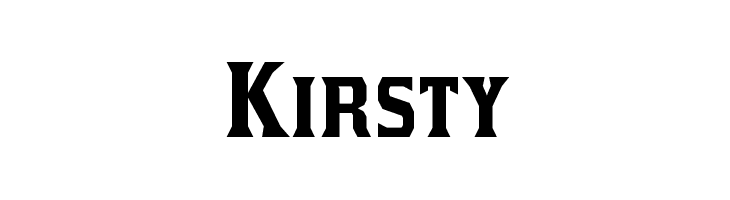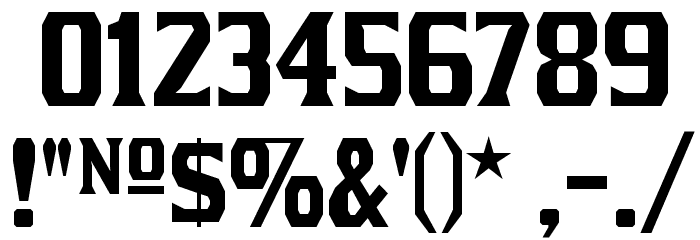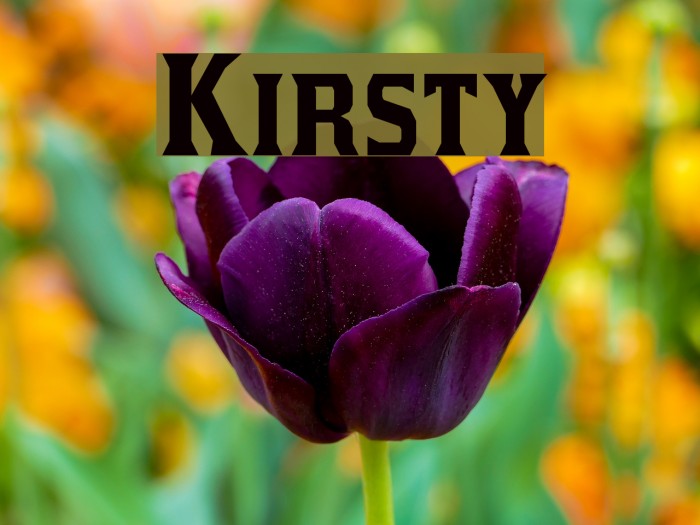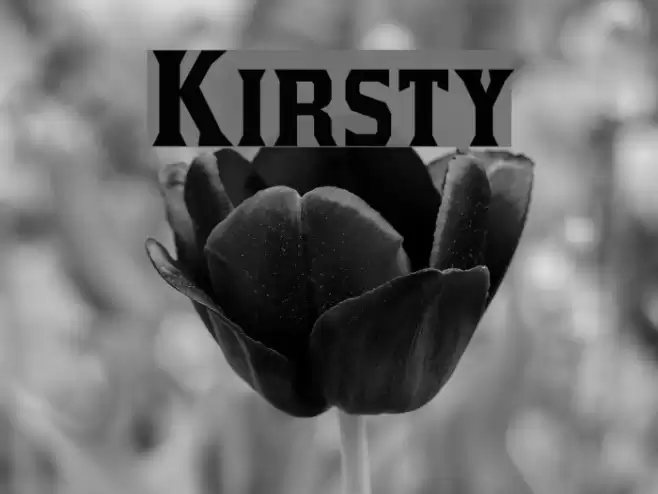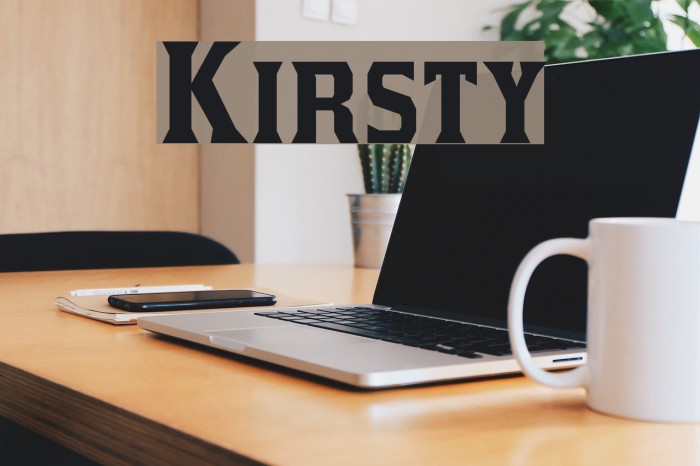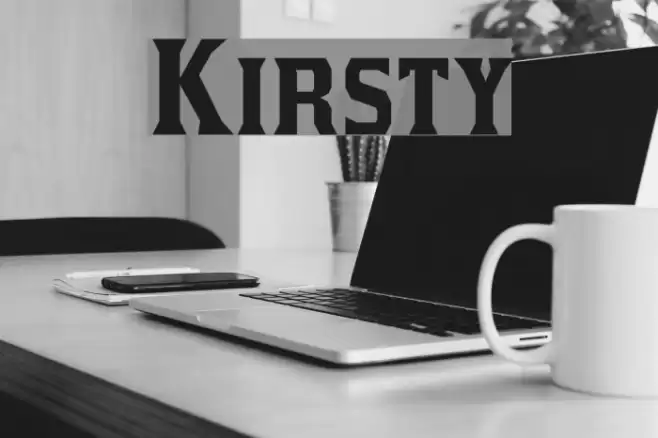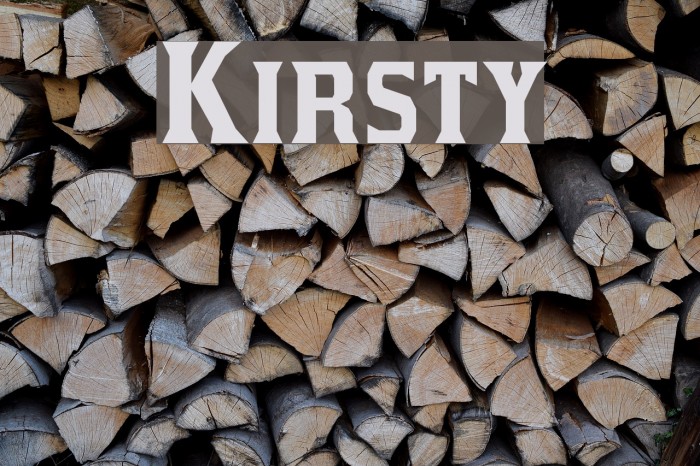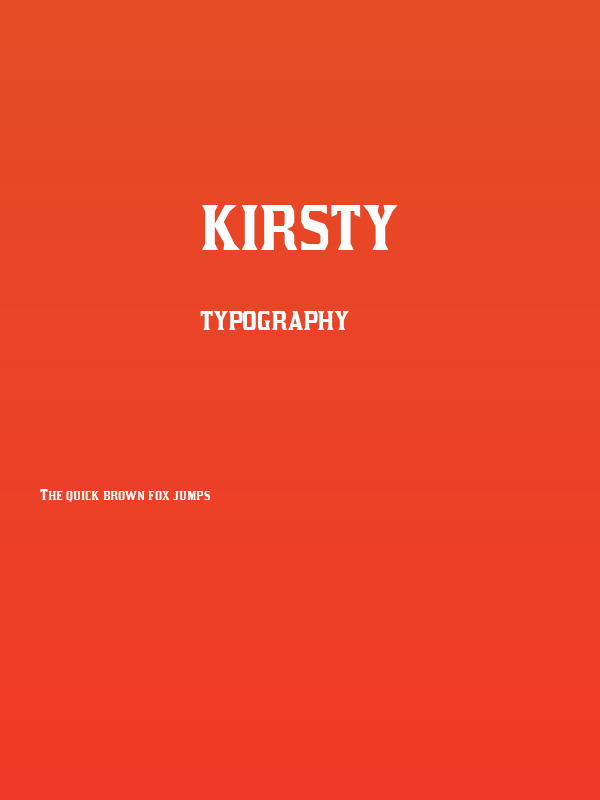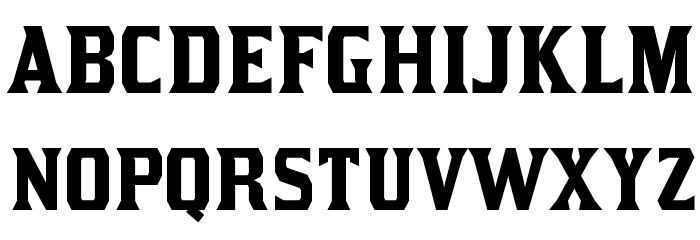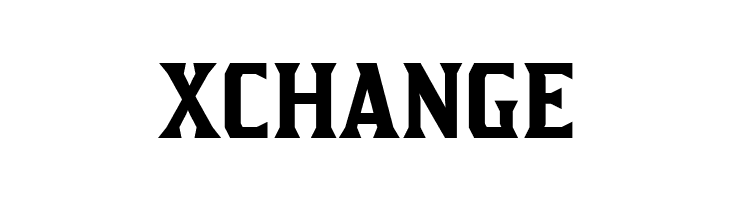
Kirsty Font
Kirsty Description
This font features a bold and striking design with sharp, angular edges and a strong presence. The uppercase letters are particularly prominent, with a geometric style that conveys a sense of strength and authority. The lowercase letters maintain the same angular aesthetic, ensuring consistency throughout the typeface. Numbers are equally bold, making them stand out clearly. Special characters are designed with the same attention to detail, providing a cohesive look across all elements. This font is ideal for projects that require a bold statement and a modern, edgy feel.
| Proposed Projects | Ideal for branding, posters, headlines, and any design needing a bold, modern touch. |